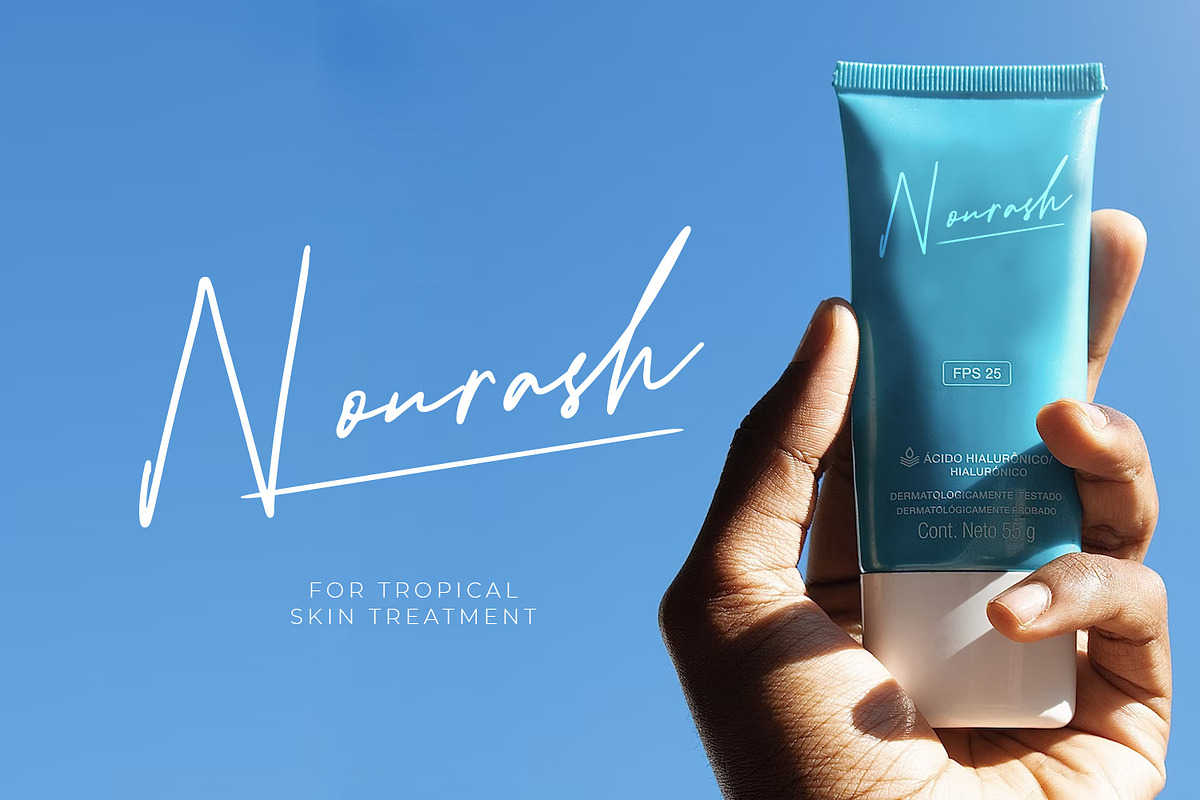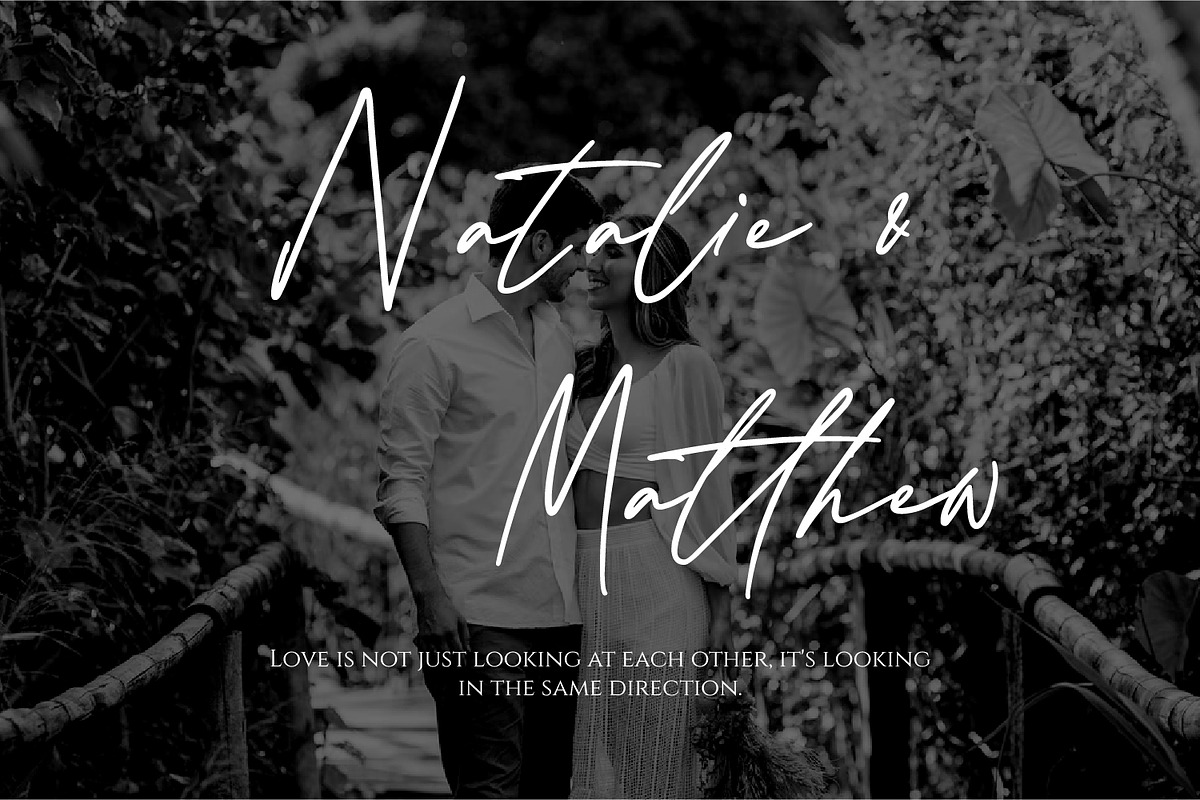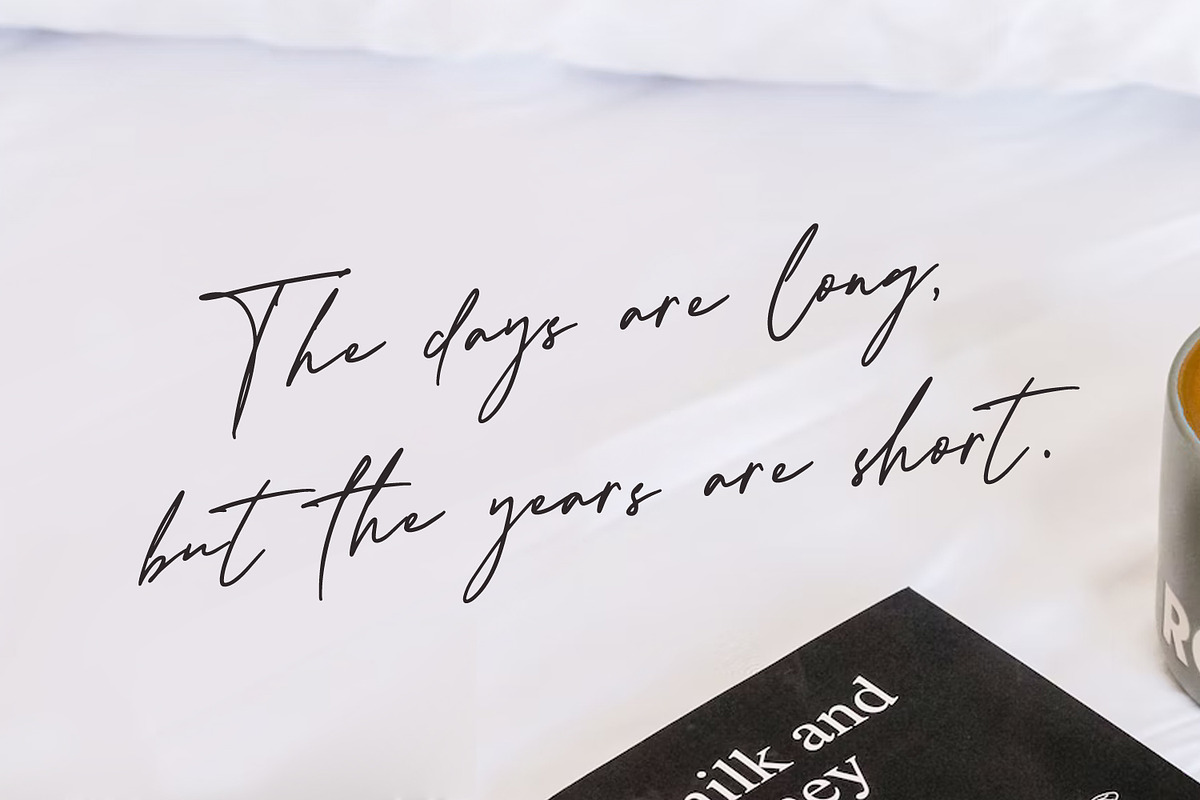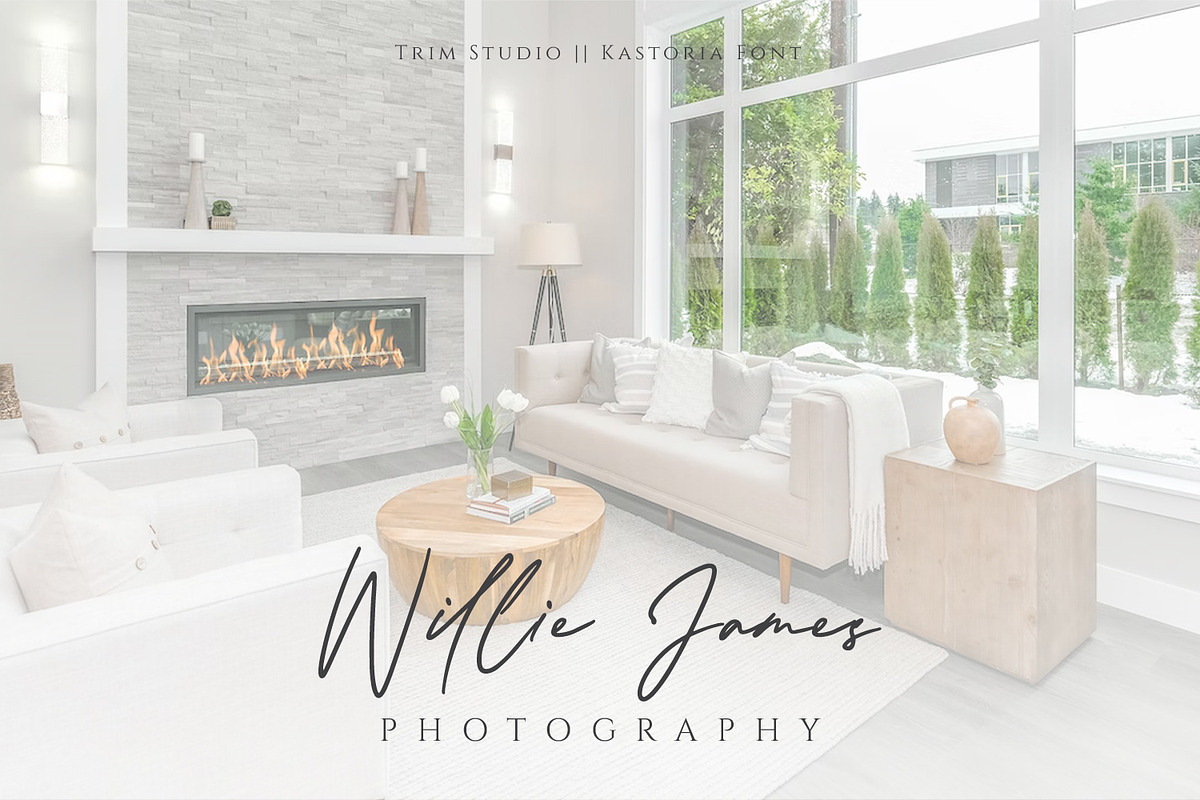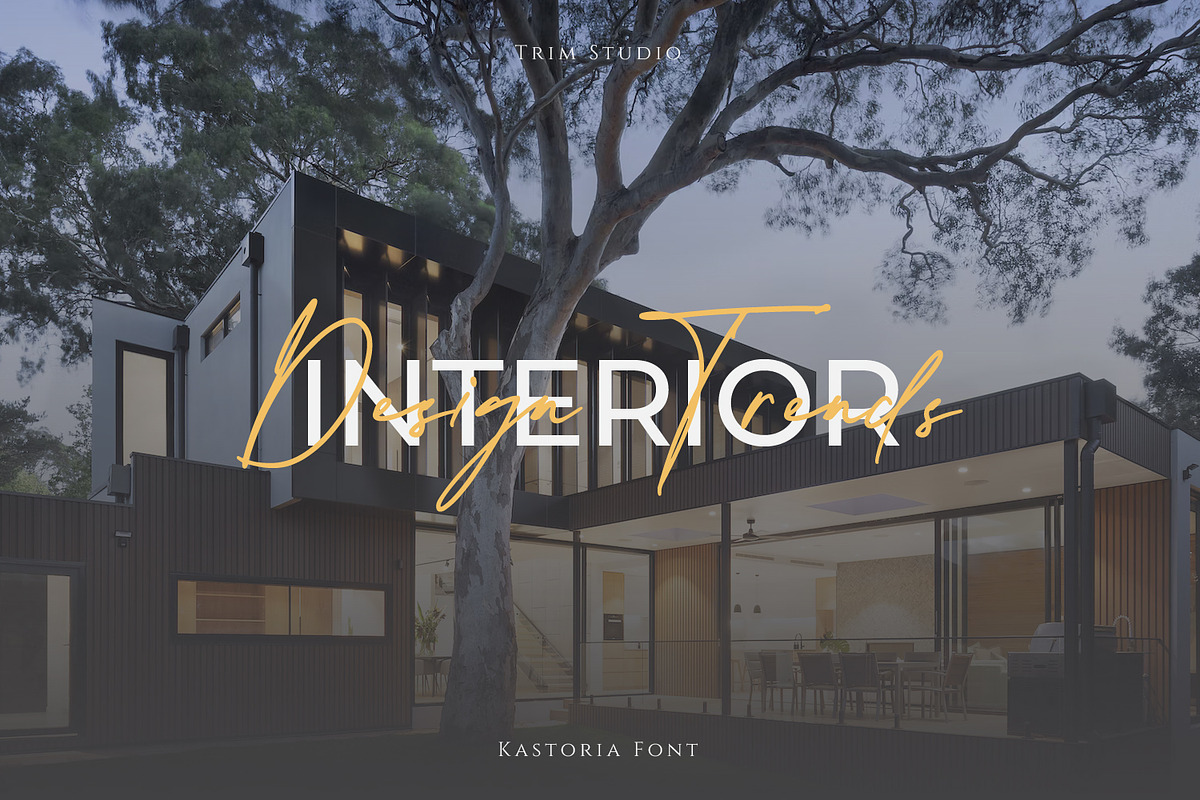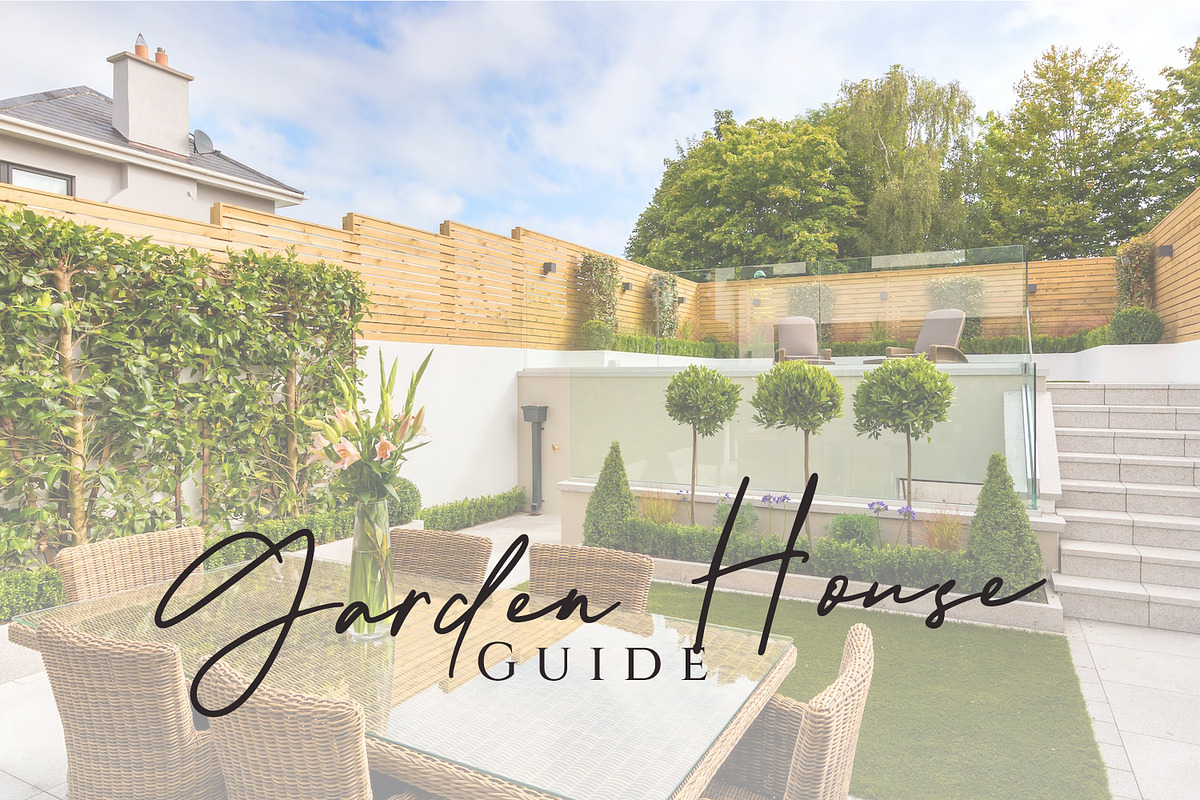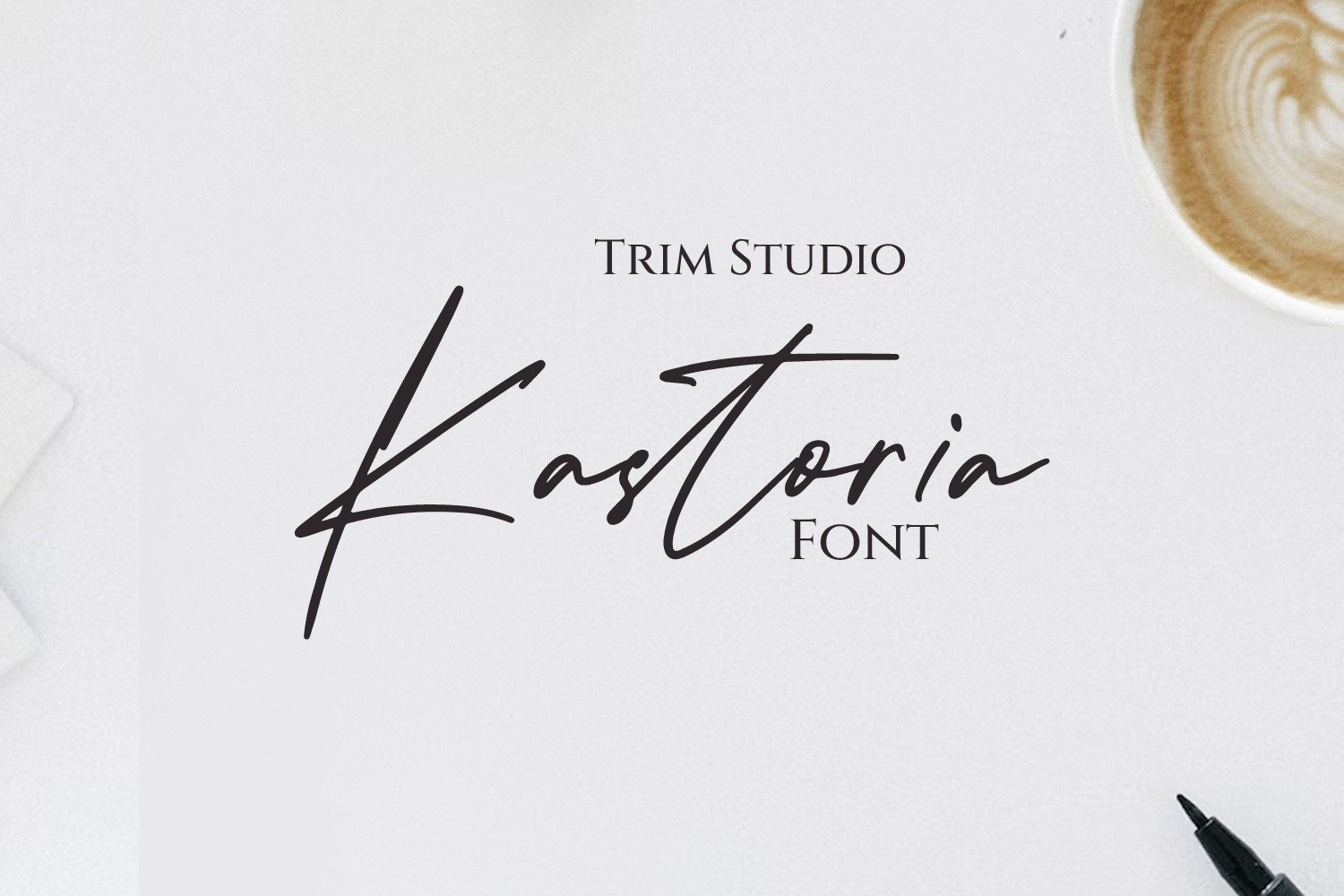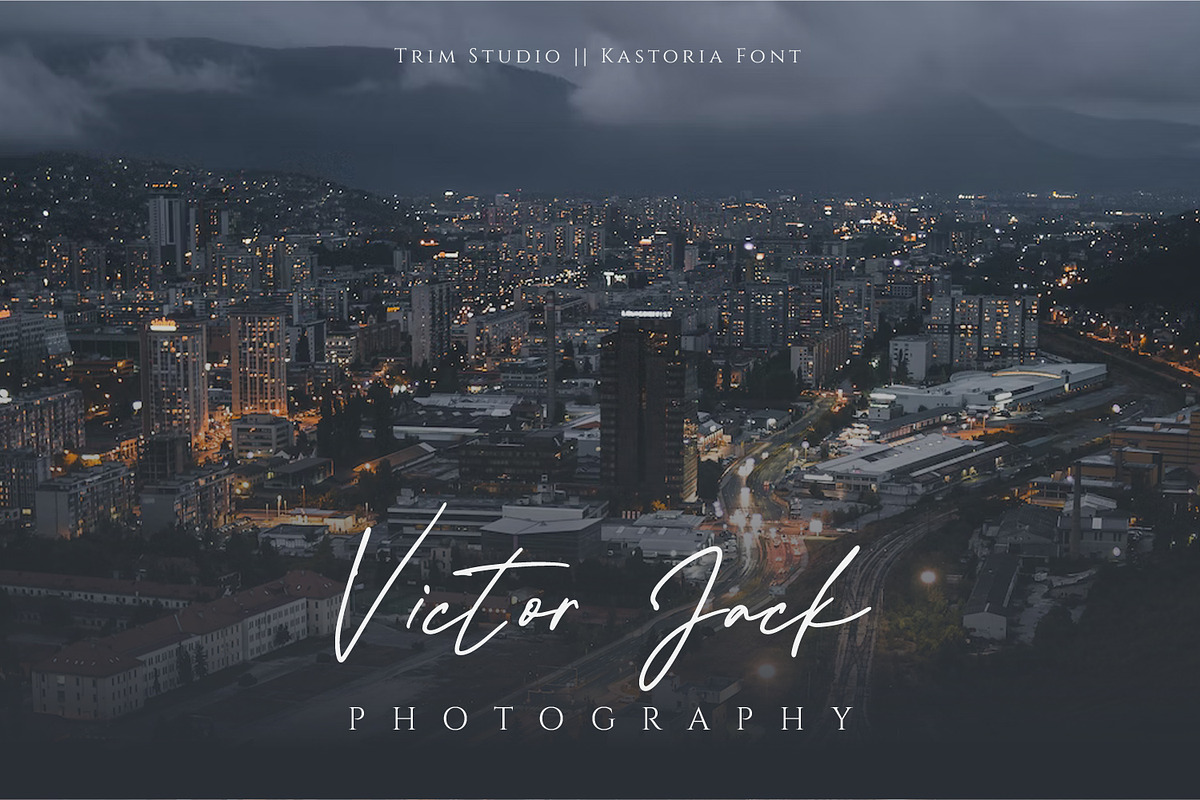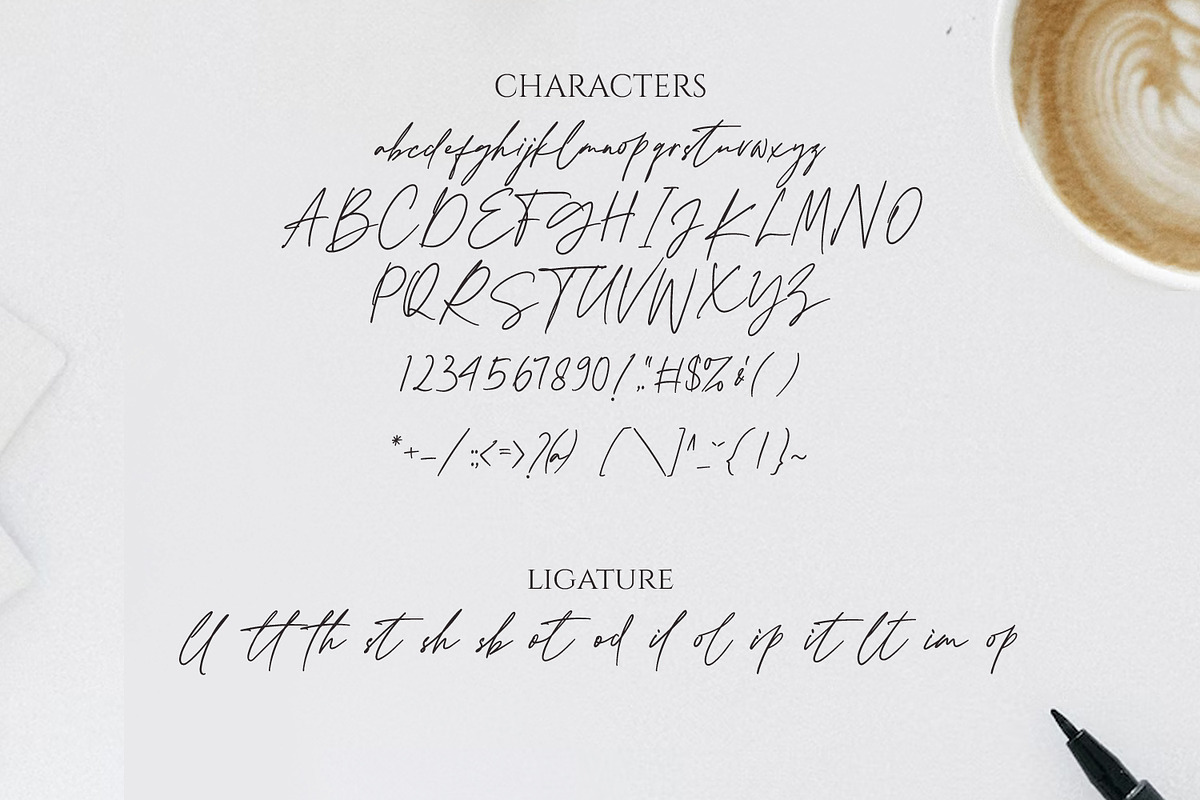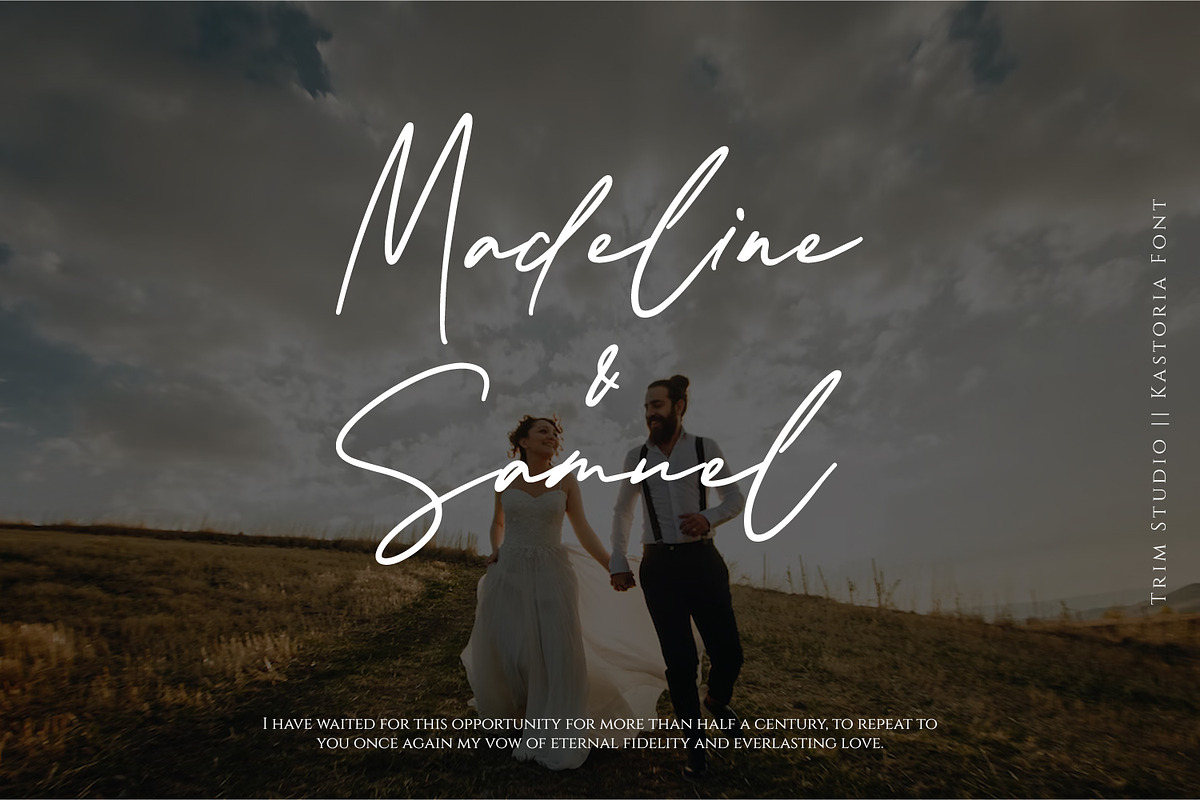
Kastoria - Script Handwritten Font
Kastoria is a stunning script font that exudes both beauty and luxury. Its simple yet sophisticated handwritten style adds a personal touch to any project, making it perfect for invitations, branding, and more. With its flowing strokes and elegant curves, Kastoria creates a sense of natural charm and sophistication. Whether used for wedding invitations, product packaging, or social media posts, this versatile font is sure to make a statement.